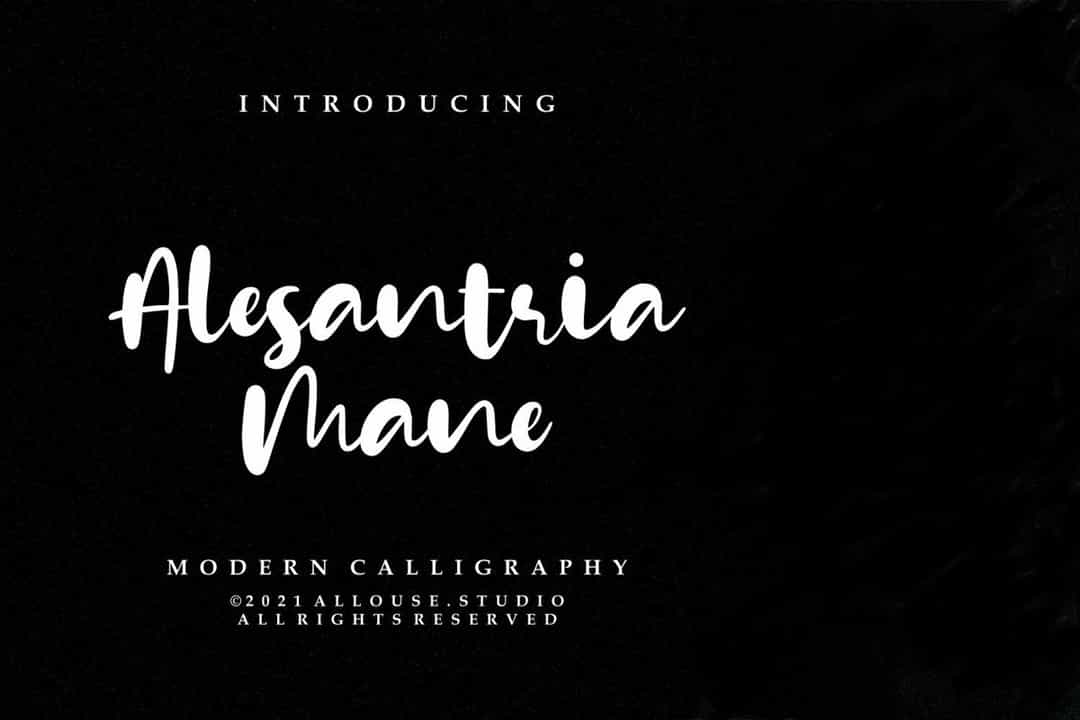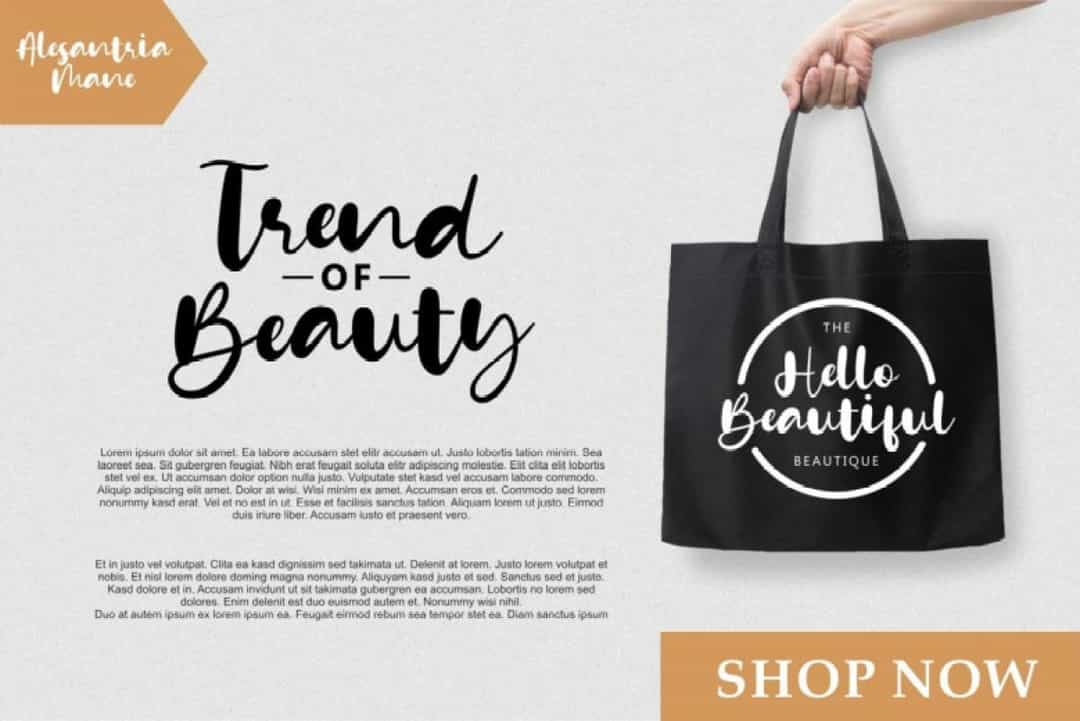
Alesantria Mane is a beautiful calligraphy font that is worthy to be used for packaging, branding of products, magazines, wedding, social media and other purposes to display words over backgrounds. This font has all the OTF supports for the multilingual characters.